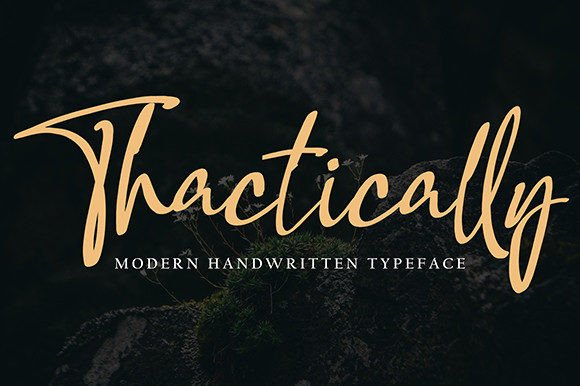
Welcome to the realm of Thactically Font, a beguiling script font family crafted to bewitch your designs. Step into a world of enchanting swirls and elegant curves, where each letter dances with a grace that captures hearts. Inspired by the allure of handwritten charm, Thactically Font exudes a captivating aura both classic and refreshing.
With its unwavering dedication to quality, Pineungtype and Missinklab have poured their passion into creating a font that elevates your projects to the pinnacle of sophistication. Unveil the boundless possibilities that await you as you explore the depths of Thactically Font's creativity.
Whether you seek to enchant wedding banners with timeless elegance or infuse your branding with a touch of refined charm, Thactically Font stands ready to fulfill your dreams. Its versatility knows no bounds, making it the perfect companion for logos, invitations, greeting cards, and an endless array of creative endeavors.
Immerse yourself in the allure of Thactically Font and experience the transformative power of beauty. Let its delicate strokes ignite your imagination and transport you to a world where words take flight and dreams find their voice.